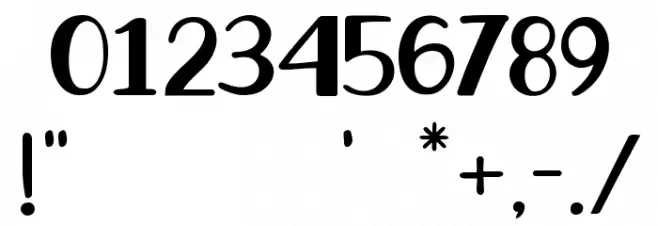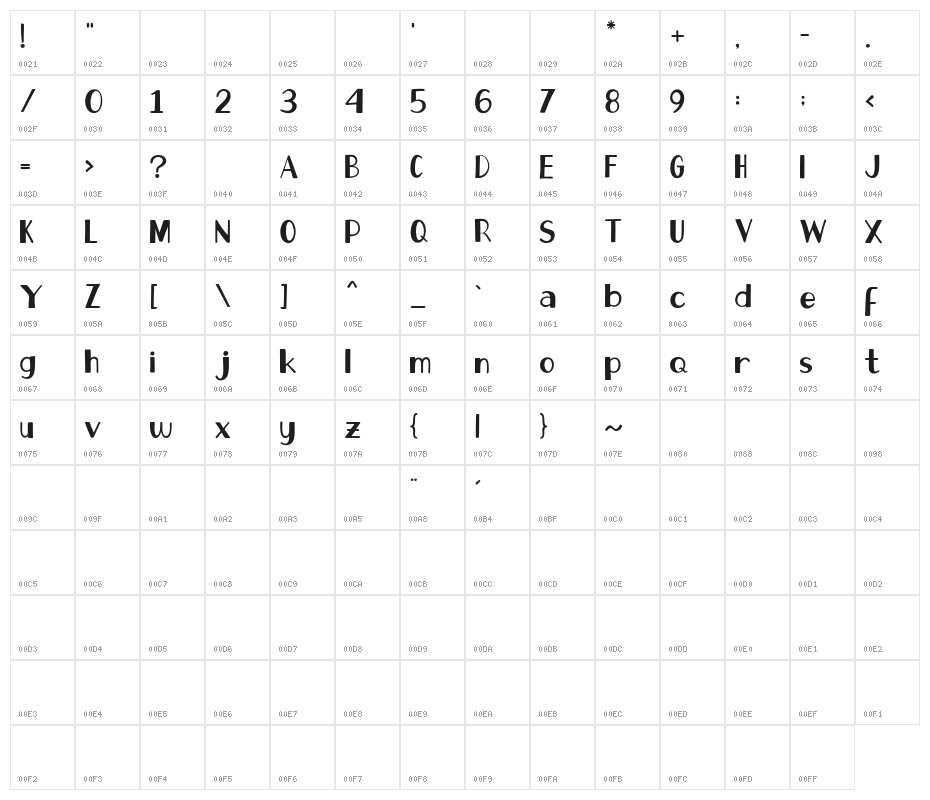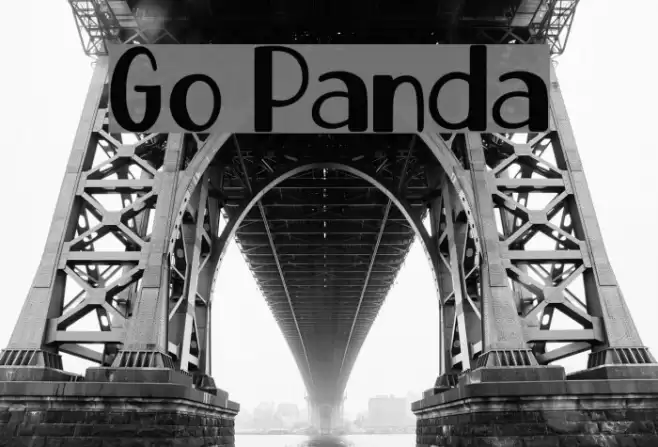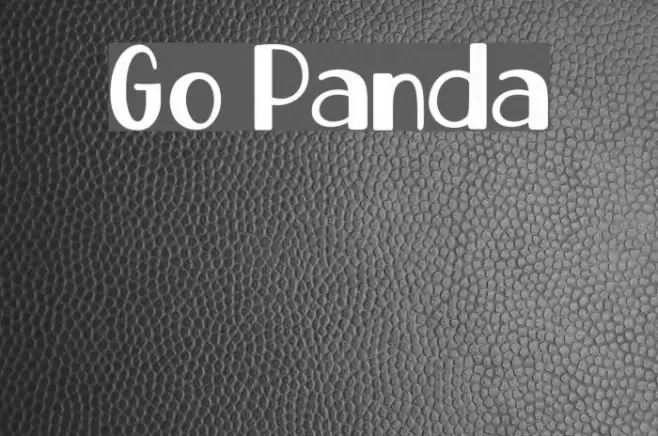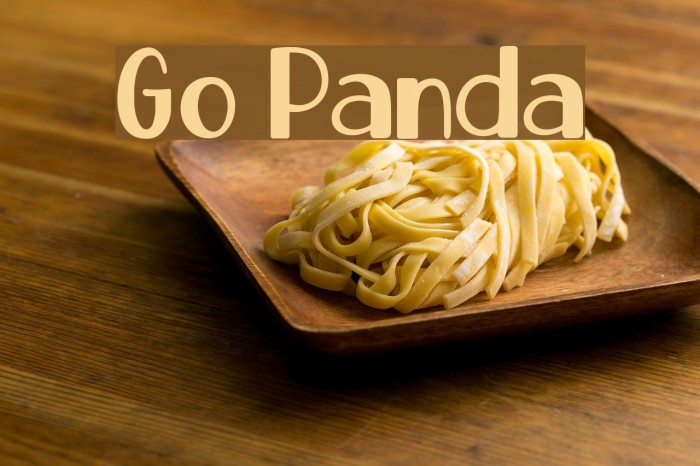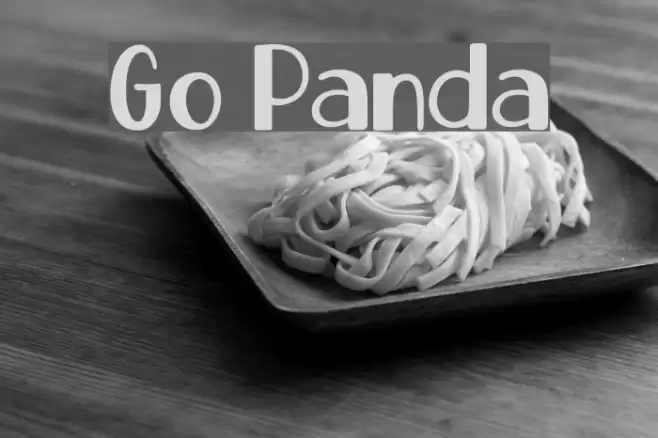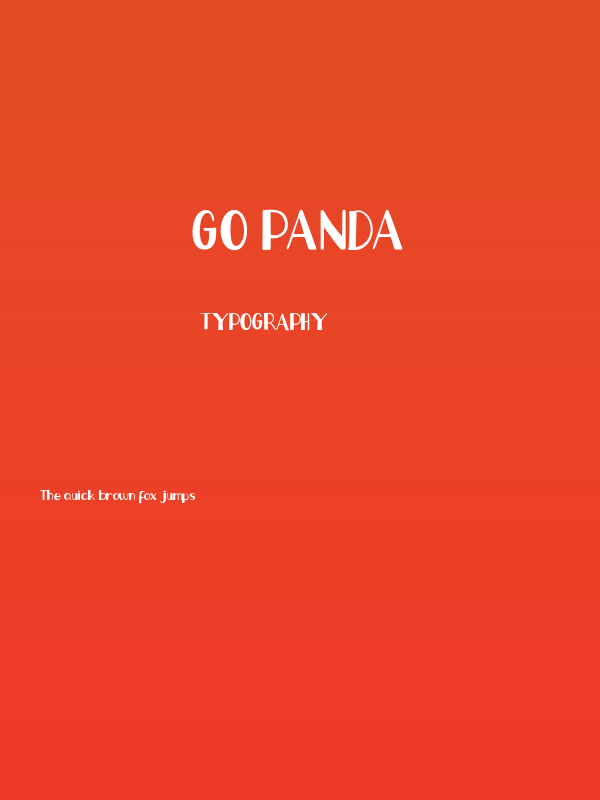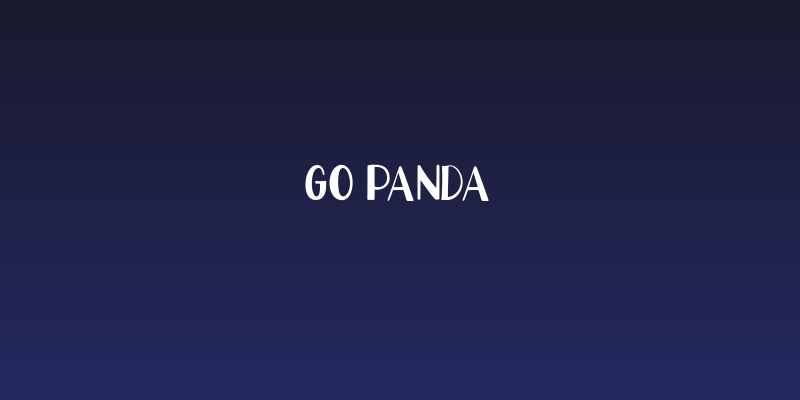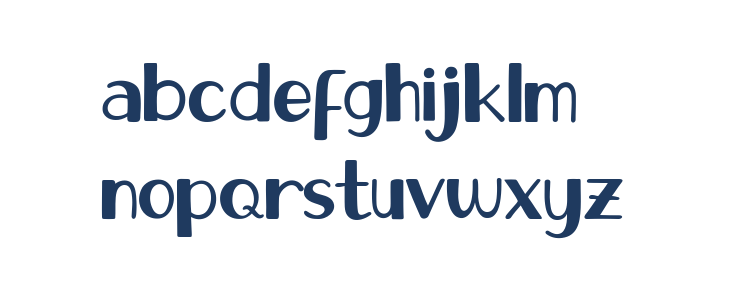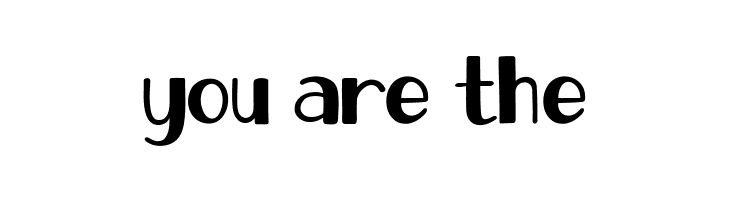
Go Panda Font
Go Panda Description
This font features a playful and bold style with a mix of thick and thin strokes, creating a dynamic and lively appearance. The uppercase letters are tall and slightly condensed, while the lowercase letters maintain a consistent roundness, adding to the font's approachable and friendly feel. The numerals are clear and easy to read, with a uniform height that matches the uppercase letters. Special characters are designed with the same playful aesthetic, making them stand out. Overall, this font combines a modern look with a touch of whimsy, making it suitable for a variety of creative projects.
| Overall Style | Modern, Whimsical |
| Proposed Projects | Ideal for children's books, playful branding, posters, and creative digital content. |